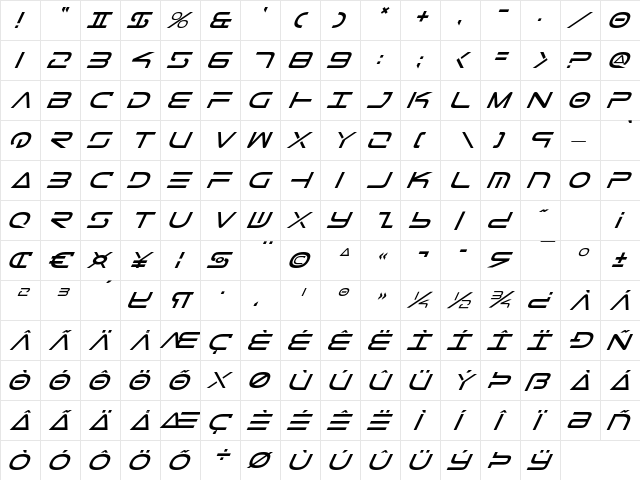
Tele-Marines Italic Italic
Design Context for Tele-Marines Italic Typeface
Tele-Marines Italic offers clean, dependable letterforms without strong stylistic allegiance, making it a practical choice for designers who need flexibility. The dynamic lean of this cut emphasises speed and emphasis in any layout.